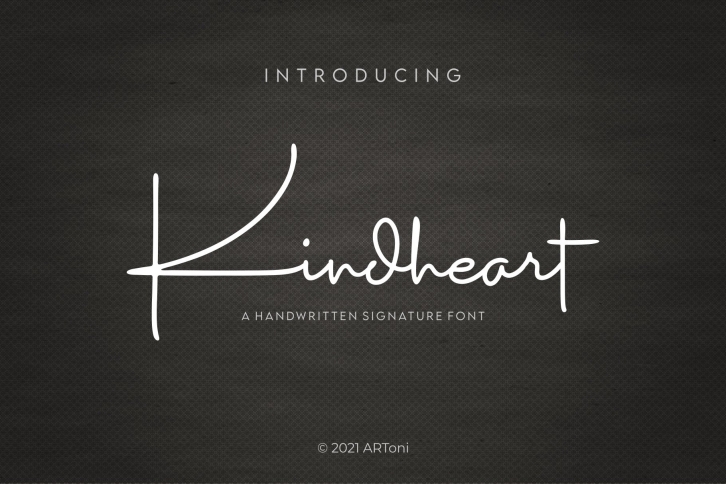
Kindheart is a great font that was designed by ARToni. Imagine the amount of combinations you can create using this font! The archive is 16.25 MB and it was released on August 17, 2021. Kindheart looks beautiful on wedding invitations, greeting cards, logos, posters, labels, t-shirt designs, logos, business cards and is perfect for use in ink or watercolor works, fashion, magazines, packaging and food menus, children's books and more!